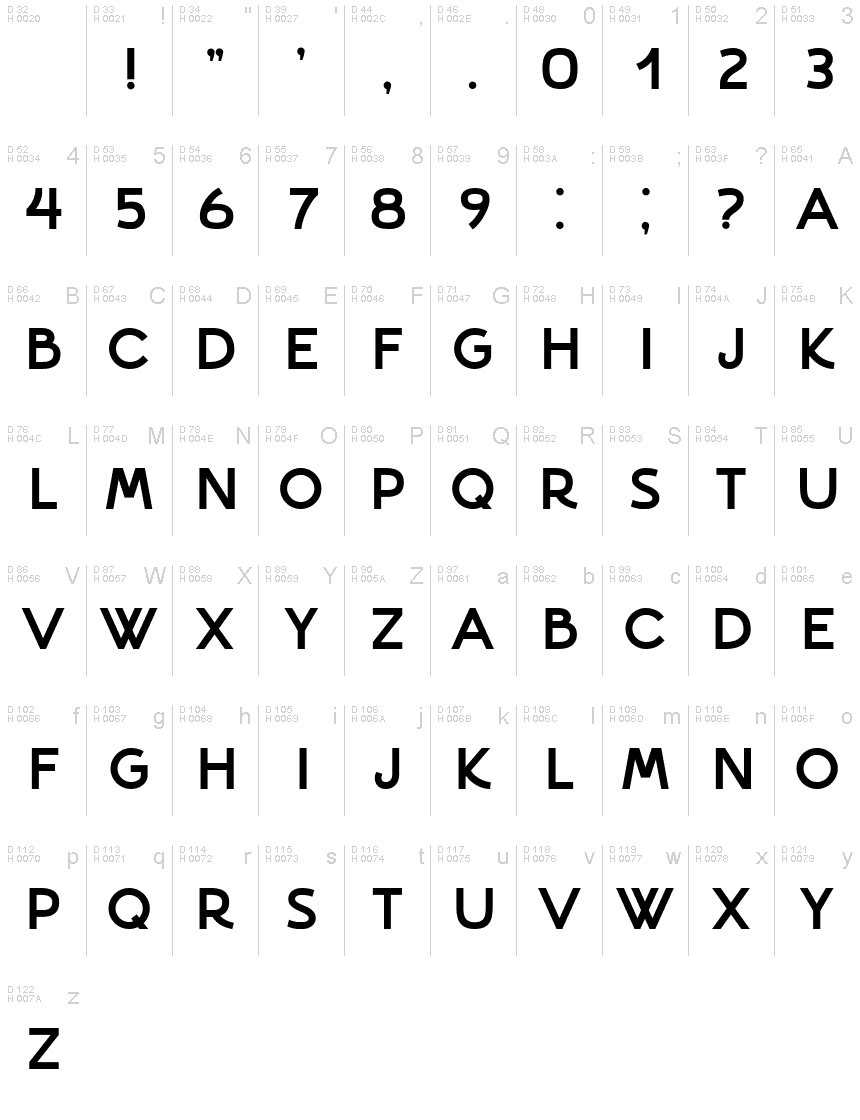
Installer Regular
Installer, a sans serif marvel crafted by Vladimir Nikolic, stands out with its clean lines and modern aesthetic. This font's sleek, sans serif design boasts an understated elegance that is both versatile and visually striking. With its uncluttered appearance and bold stance, Installer offers an optimal reading experience for digital screens and printed materials alike.
The font's uniformity in stroke weight contributes to its readability, while the subtle nuances in letterform construction ensure a distinct personality. The absence of serifs creates a smooth flow of text, making it highly legible even when used in less-than-ideal conditions.
Installer is not only practical but also exudes a contemporary charm that can elevate various creative endeavors. Whether it's branding, web design, editorial layouts or advertising campaigns, Installer's clarity and simplicity make it an ideal candidate for conveying messages with confidence and style.